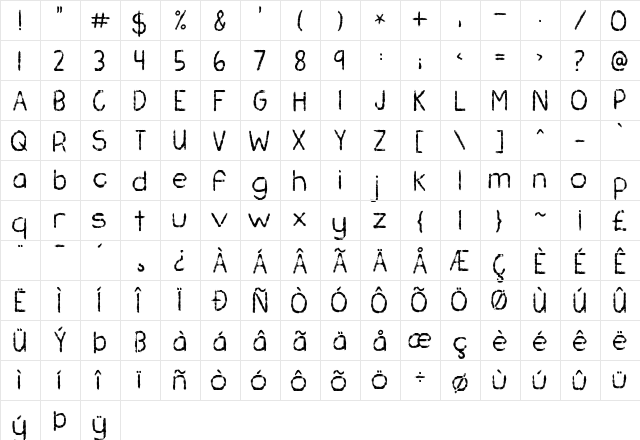
KG Chasing Pavements Regular
| Designer | Kimberly Geswein |
Design Context for KG Chasing Pavements Typeface
KG Chasing Pavements takes a measured approach to typography — its balanced proportions and neutral character make it a reliable workhorse for both digital and print work.